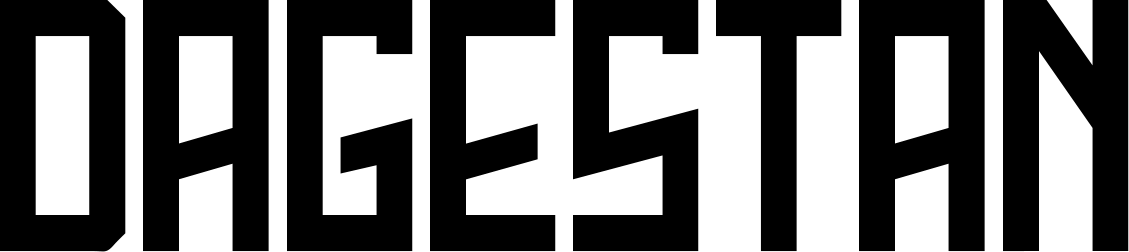
Dagestan Font
Inspire the world with your ultimate typography by adding Dagestan font to your favorite selection! This square block font with sans serif style while presenting tall and bold characters gives a smart feeling with a classic look.
The letterforms offered by this Dagestan font are 2 sets of capital alphabets, numbers, and some punctuations. It doesn’t include lowercase letters. This font will come in handy for places like games, posters movies, robotic projects, and more.